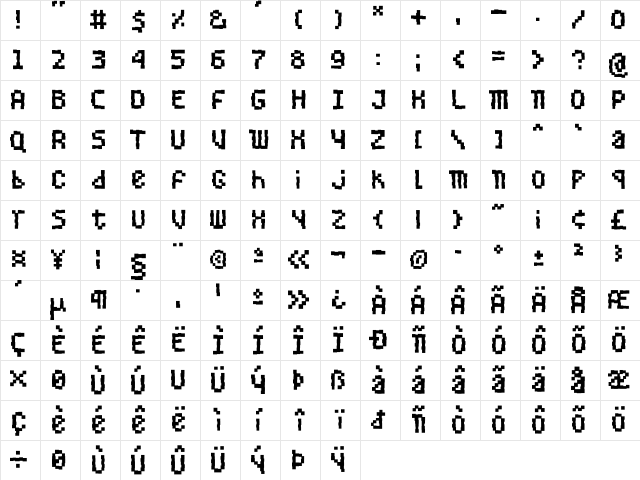
BuggedBit Medium Free Font
BuggedBit Medium
Design Context for BuggedBit
BuggedBit is a composed and adaptable typeface that performs quietly and consistently across a wide range of design contexts.